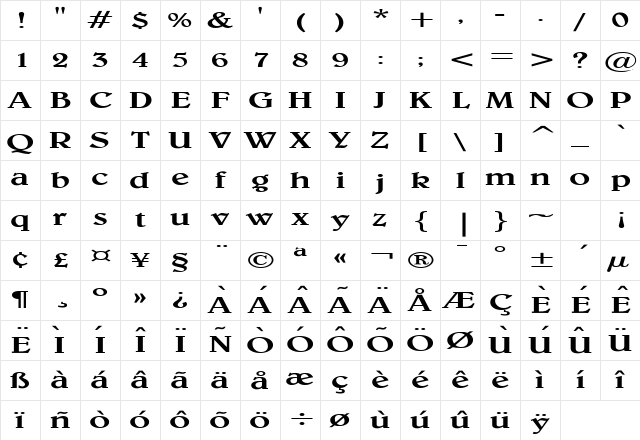
Blew Extended Normal Free Font
Blew Extended Normal
Design Context for Blew Extended
Blew Extended is a composed and adaptable typeface that performs quietly and consistently across a wide range of design contexts.
Pro Tip: Use Blew Extended in both headline and body roles to test its range before committing to a single application.